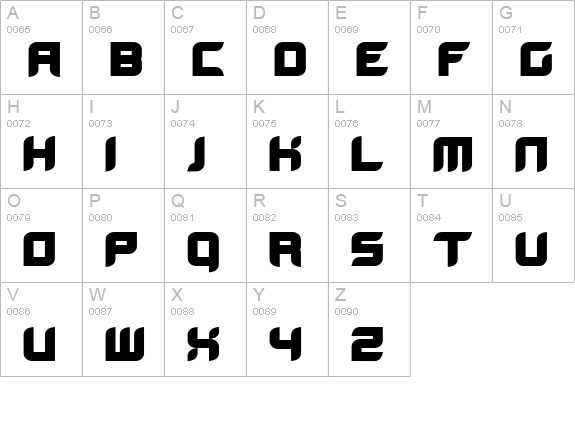
BloodWaxBold Font Details
Introducing BloodWaxBold font, a striking and bold typeface that exudes power and confidence. With its sharp edges and strong presence, this font commands attention and makes a statement in any design project. The thick strokes and unique styling of BloodWaxBold add a sense of drama and intensity, perfect for headlines, logos, and branding. But the best part? BloodWaxBold is completely free to download at FontsMarket.com. That's right, you can add this eye-catching font to your collection at no cost, making it accessible to all designers and creators looking to make an impact with their work. Don't miss out on this opportunity to elevate your designs with the captivating allure of BloodWaxBold font. Download it today and let your creativity flow!